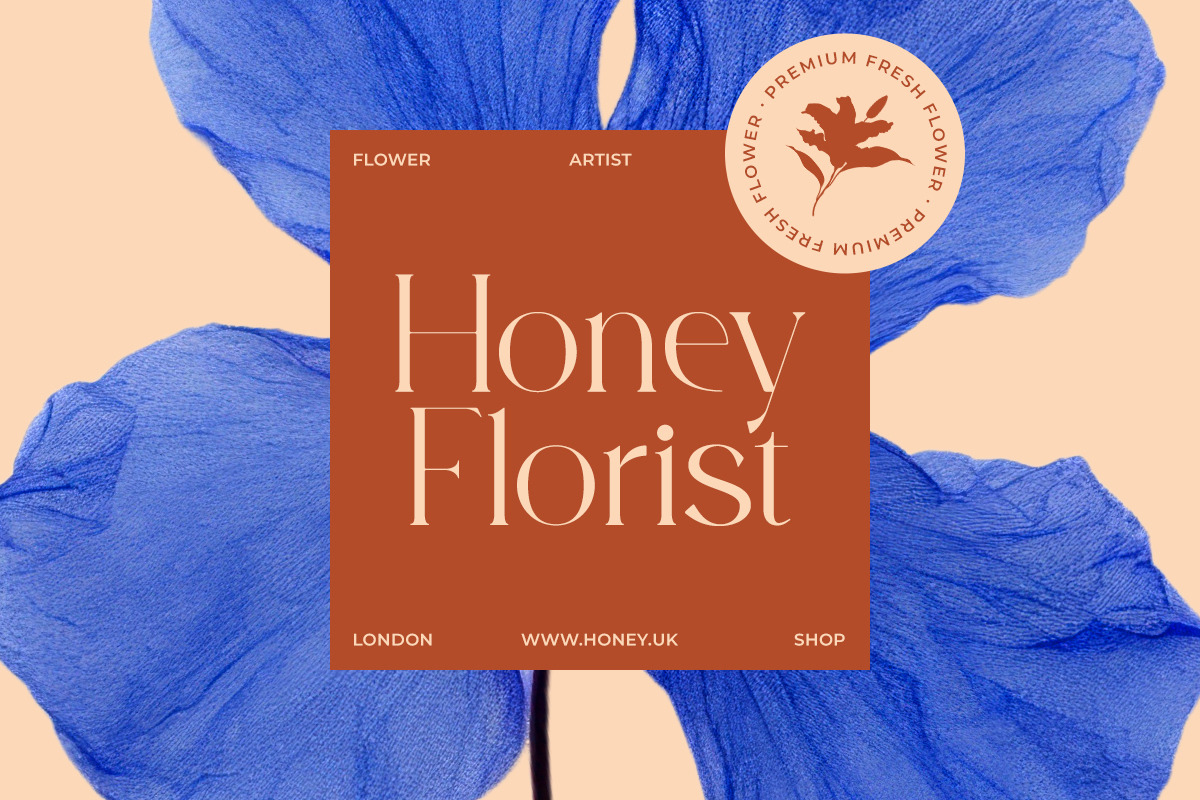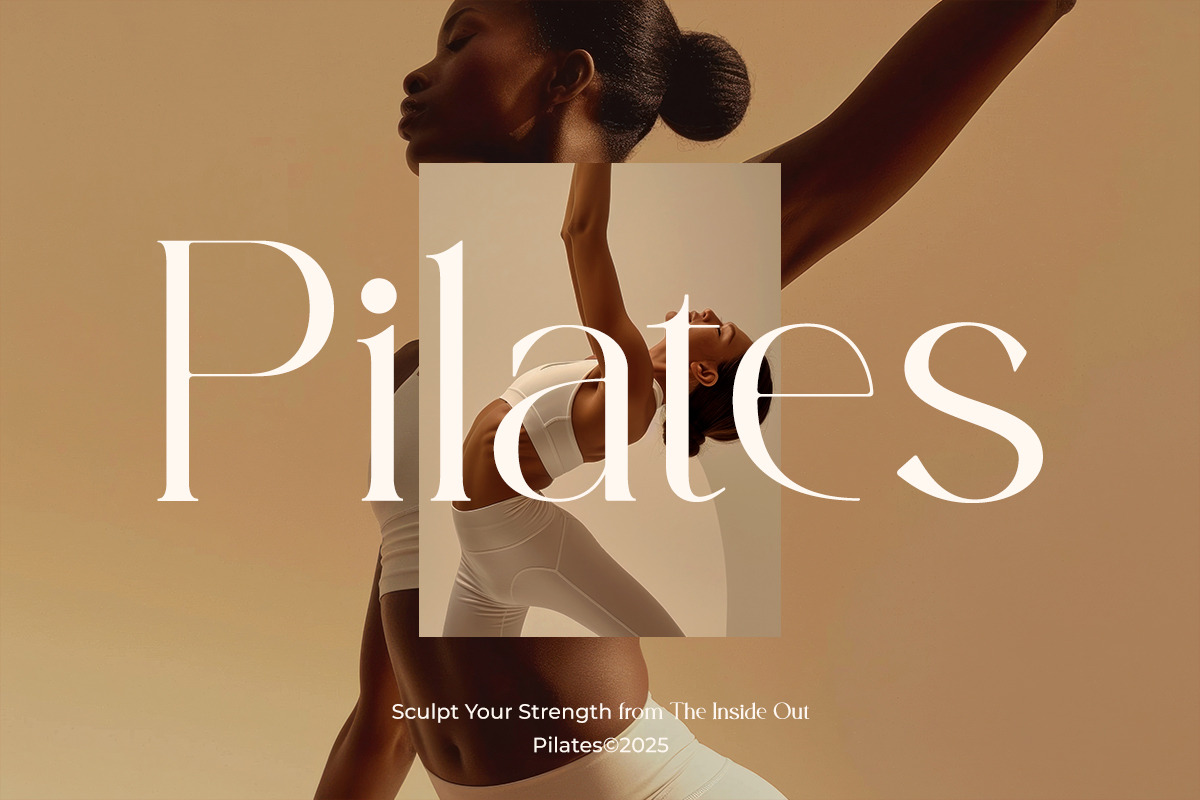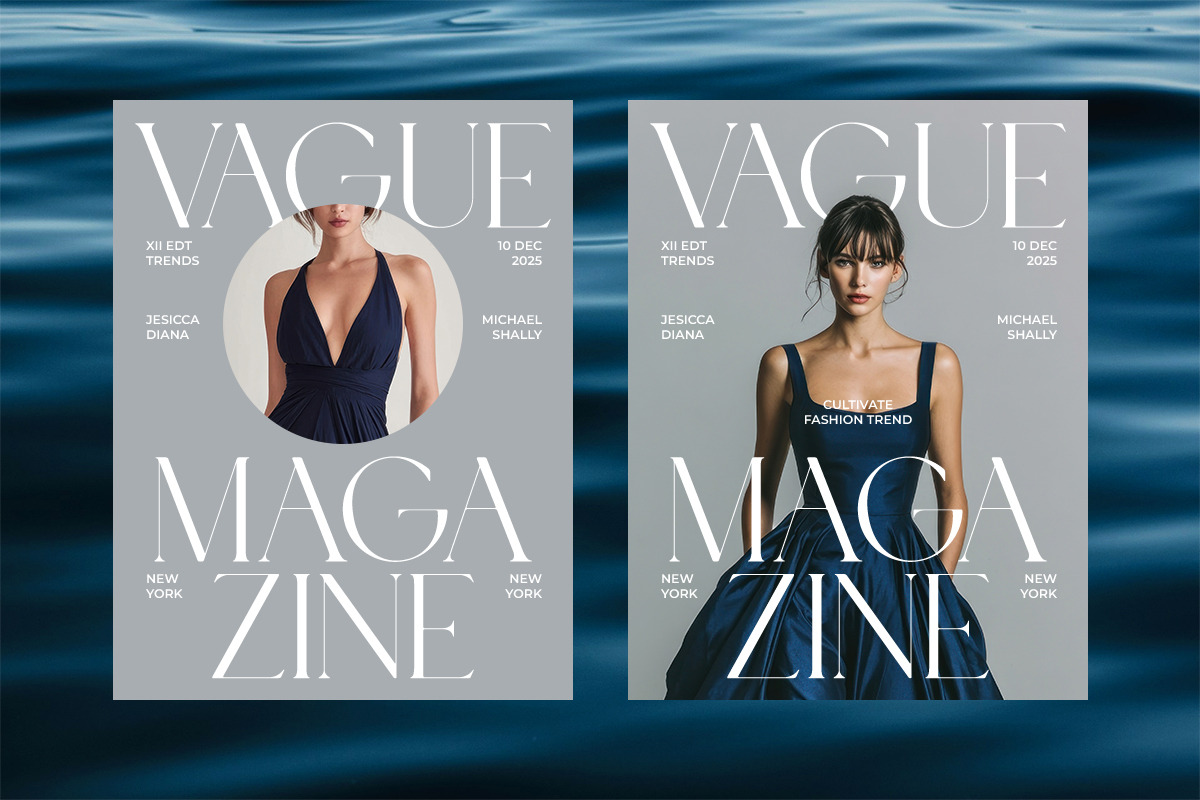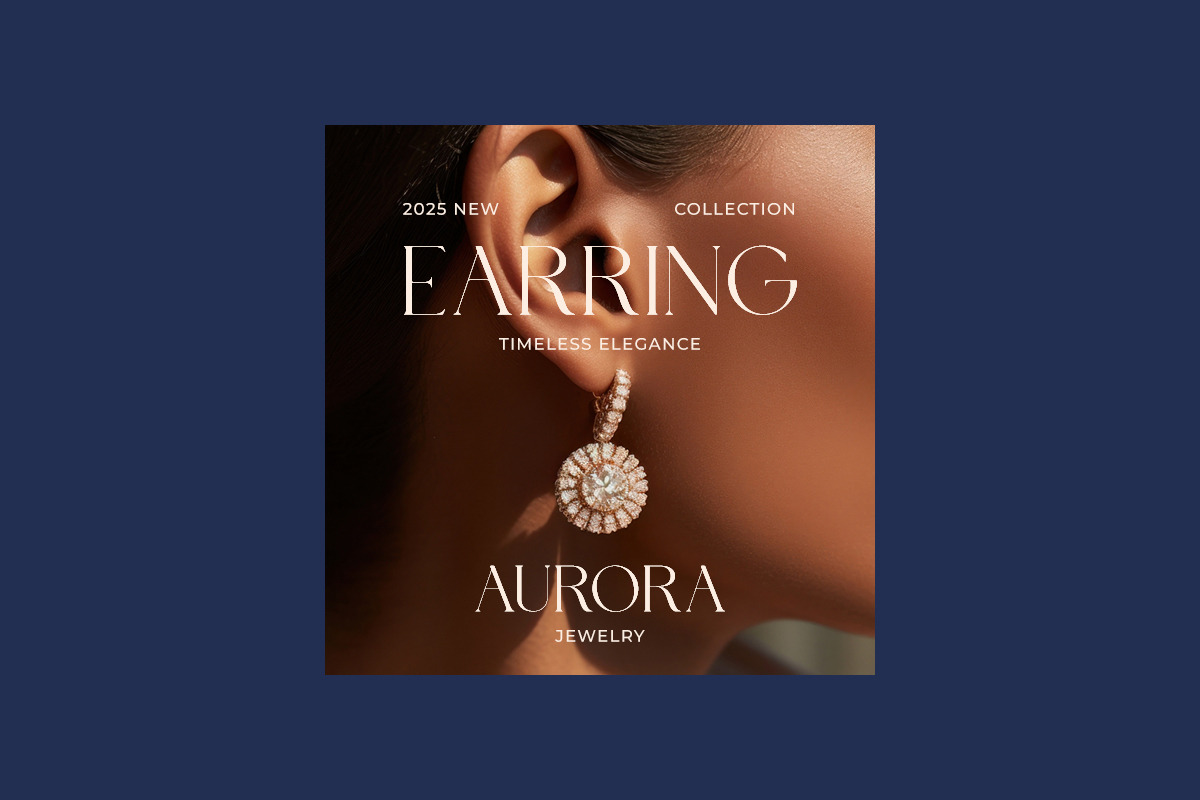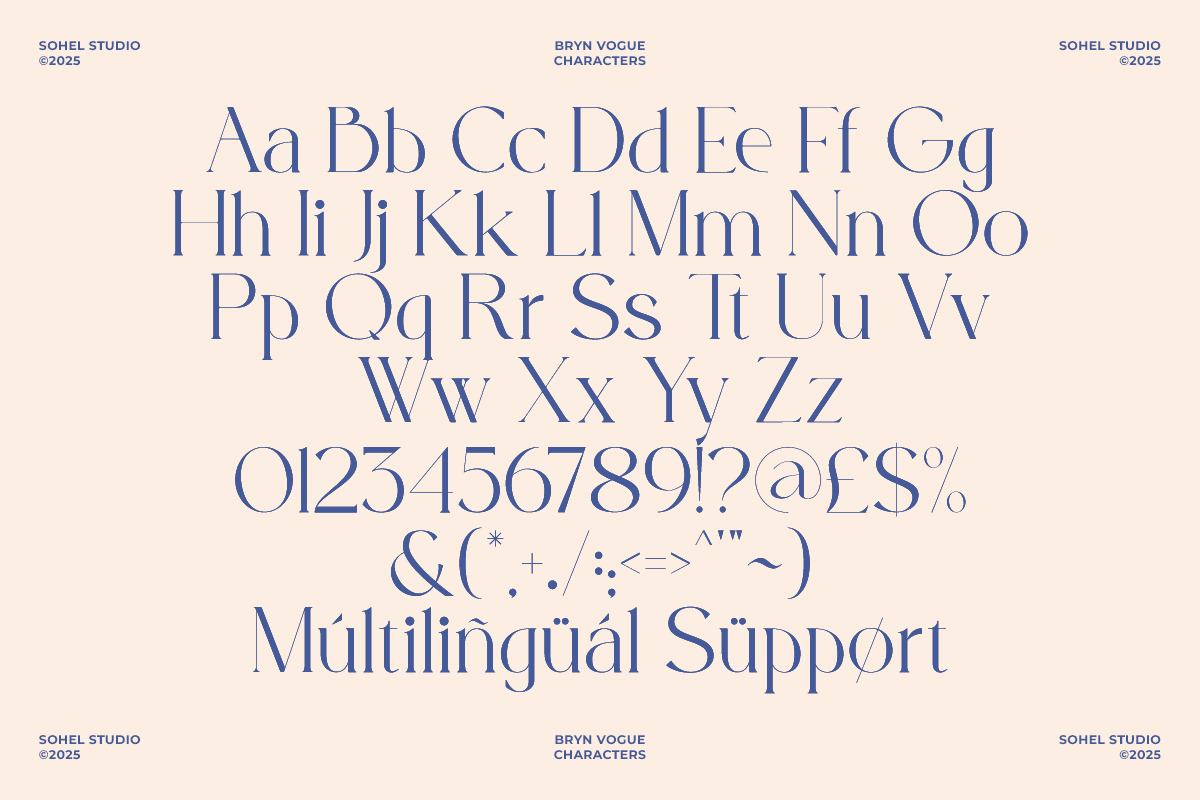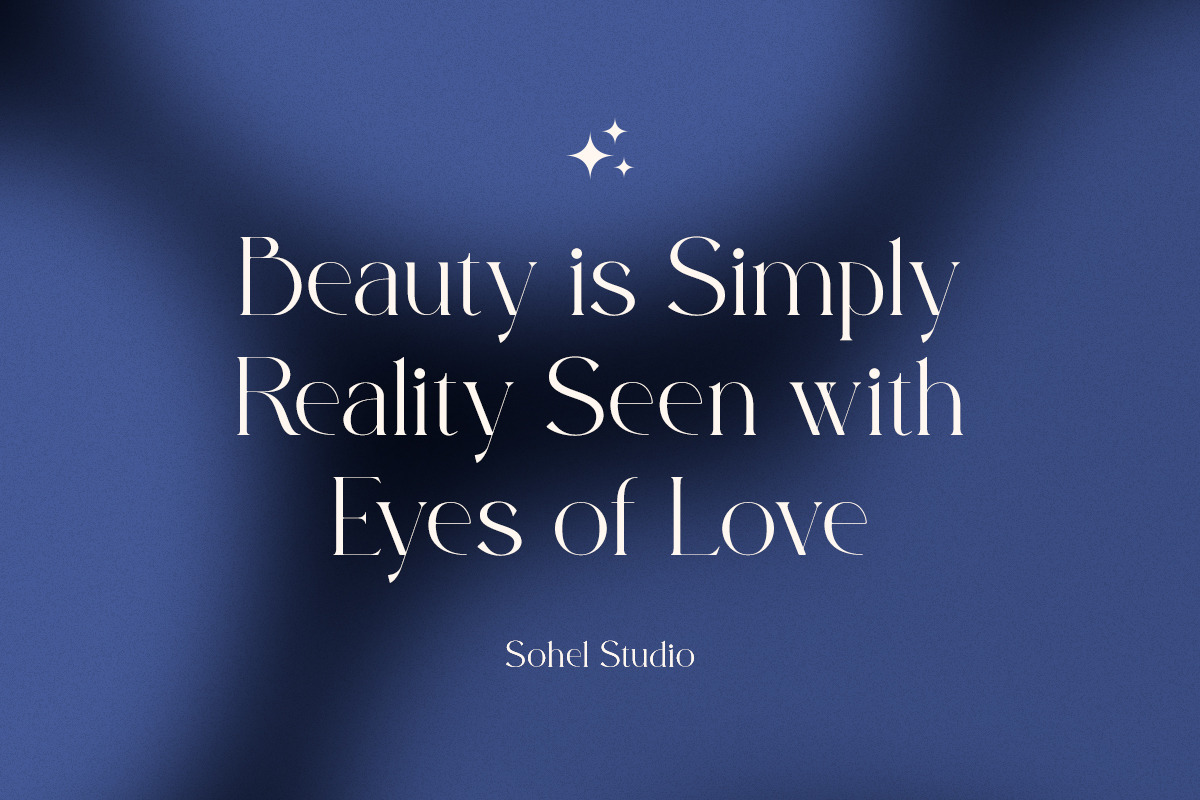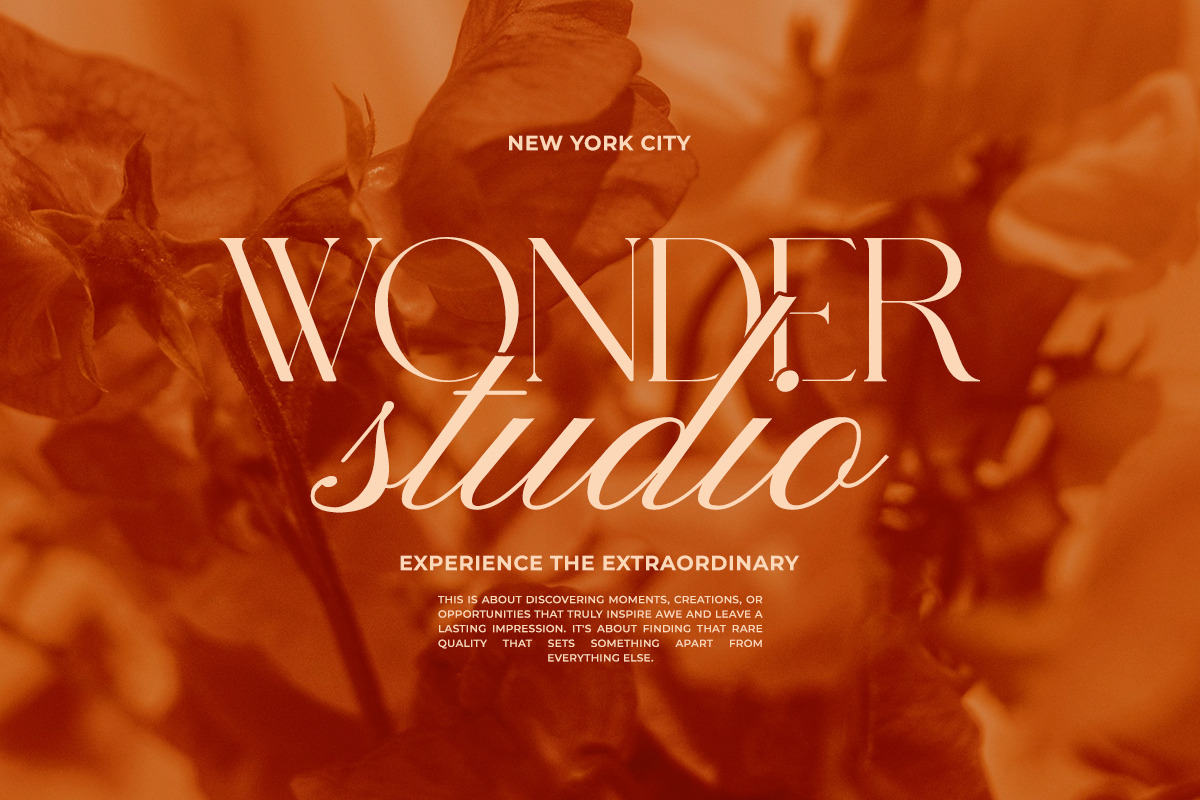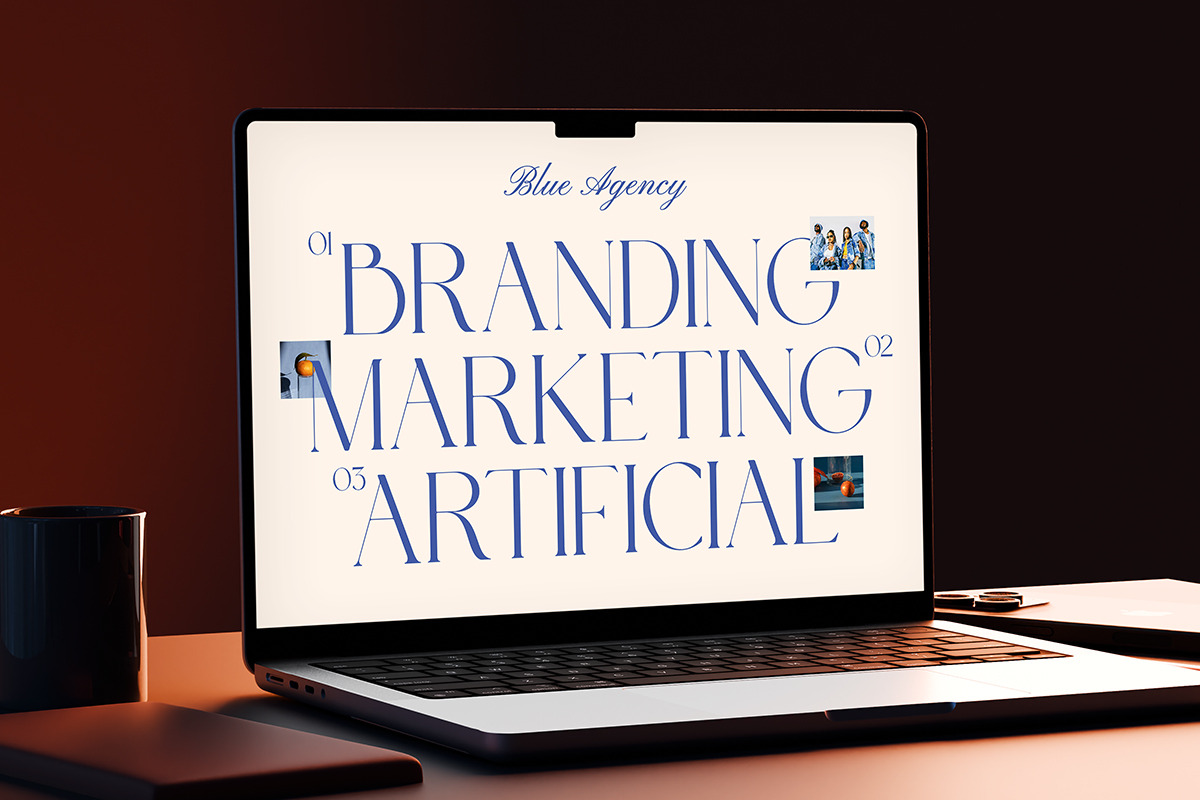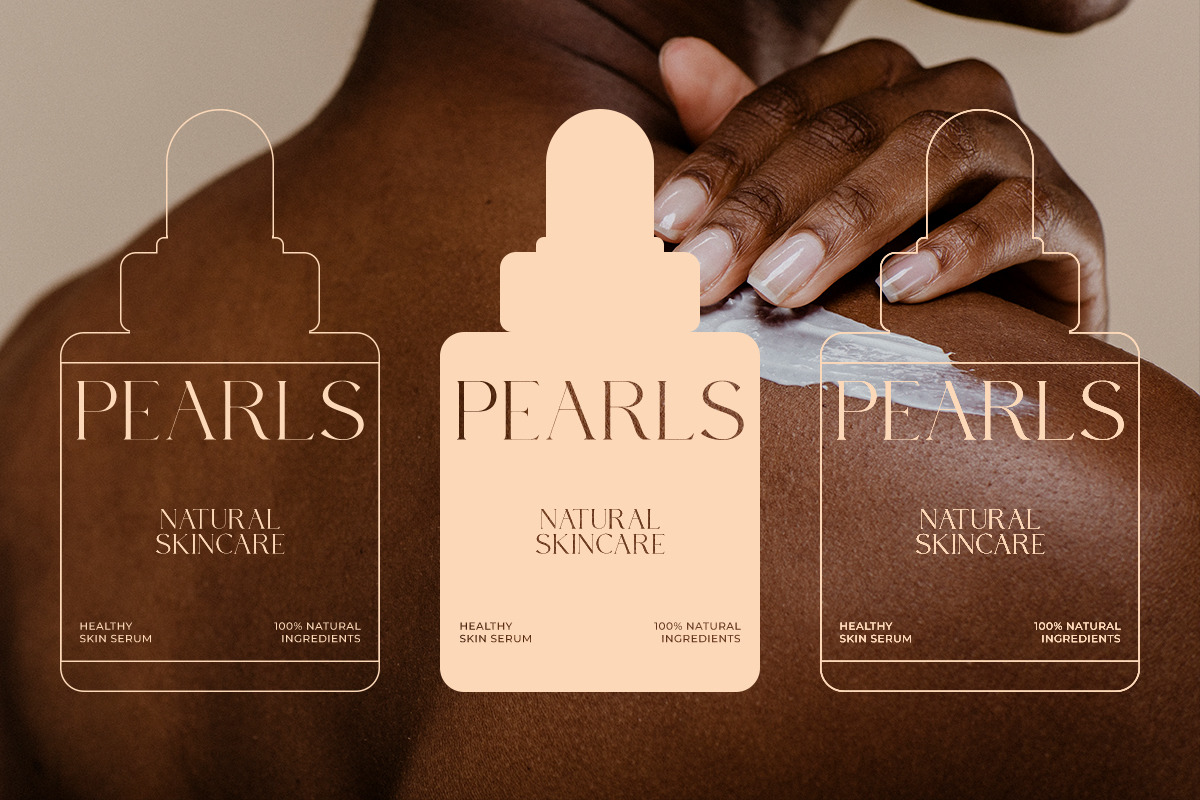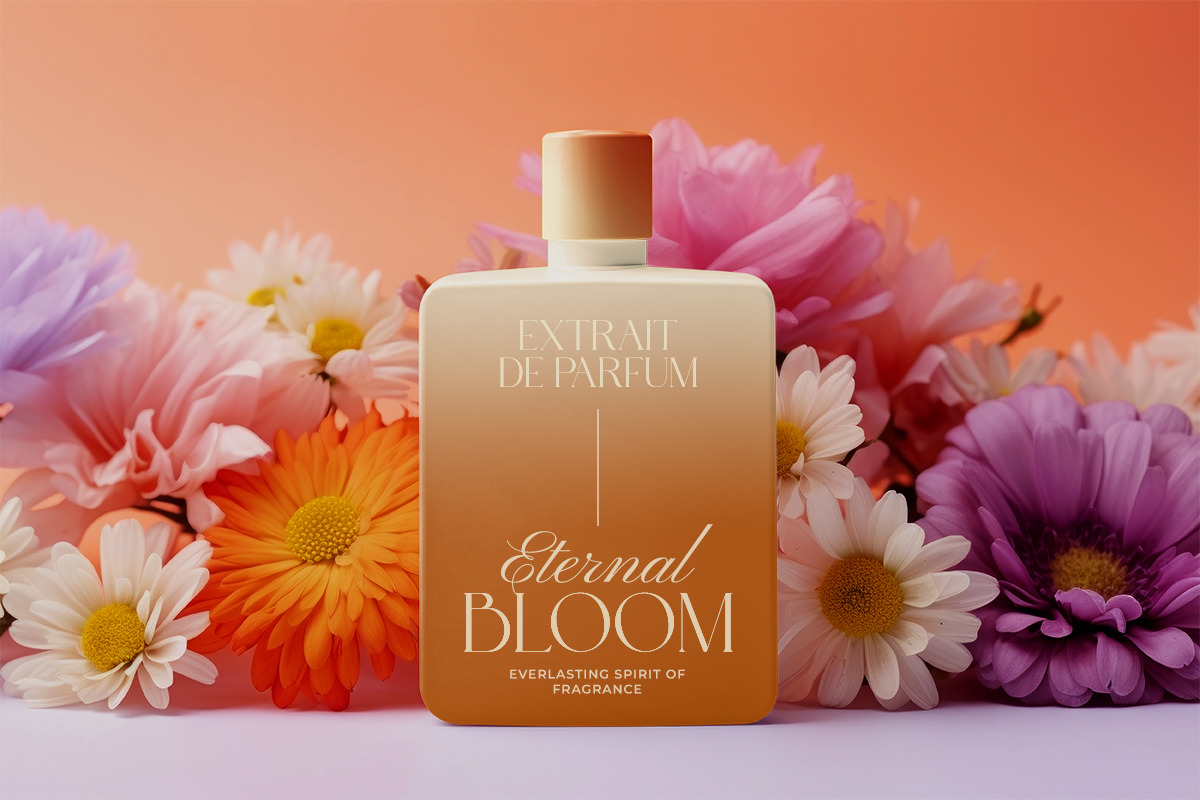
Bryn Vogue - Elegant Modern Serif
Bryn Vogue is a modern serif typeface exuding high fashion sophistication with a sharp editorial edge. Crafted to embody elegance and refinement, this font brings a sense of luxury and timeless style to any design. It combines the grace of traditional serif fonts with contemporary detail, making it both classic and current.
Its letterforms are sculpted with high contrast strokes and stylish flares that command attention without overwhelming. The elongated stems and delicate curves present a poised silhouette, tailored for upscale aesthetics and modern visual storytelling.
Designed especially for the fashion and lifestyle market, Bryn Vogue thrives in settings like luxury brand identities, beauty packaging, fashion magazines, high-end social media posts, and editorial layouts. The font’s effortlessly chic vibe also makes it perfect for lookbooks, product catalogs, and boutique branding.
Whether you're curating a visual story for a premium label or designing a minimalist fashion spread, Bryn Vogue’s refined structure adds elegance and clarity with every glyph.
When your design demands beauty, poise, and a touch of editorial luxury—Bryn Vogue delivers. This sophisticated serif typeface was designed for creatives who need to elevate their work with a font that speaks volumes in silence. Bryn Vogue is not just a font; it's the visual language of elegance and prestige, tailored for designers seeking excellence in modern branding.
✨ Why Designers Love Bryn Vogue
Editorial Elegance: Ideal for fashion magazines, lookbooks, and luxury spreads.
High-Contrast Details: Striking verticals and sleek curves ensure visual impact.
Timeless Serif Style: A graceful blend of classic serif structure with modern finesse.
Luxury-Focused Aesthetic: Suited for high-end branding, beauty, and boutique labels.
Versatile Application: Perfect for headlines, logos, social media graphics, and web hero banners.
💡 Solves These Creative Problems:
Struggling to find a font that feels both modern and classic? Bryn Vogue bridges the gap.
Need a typeface that elevates brand perception instantly? This font adds instant luxury.
Tired of overused fashion fonts? Bryn Vogue offers a fresh, refined alternative.